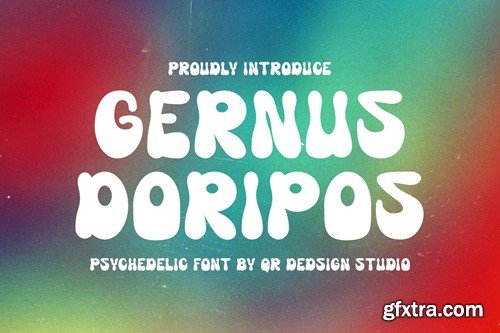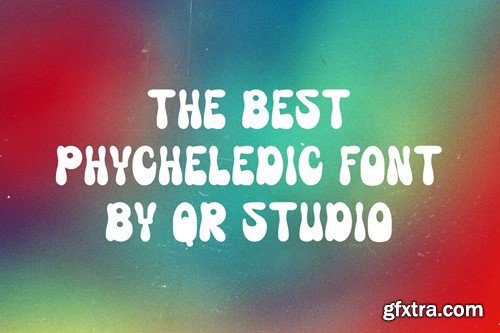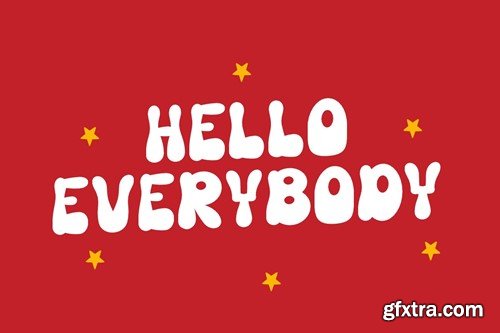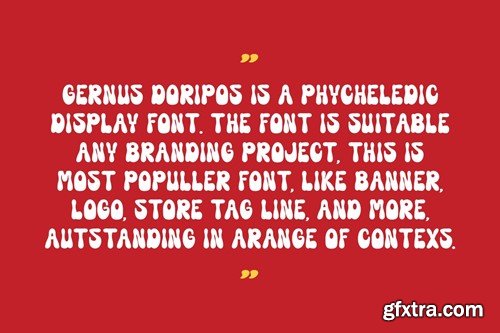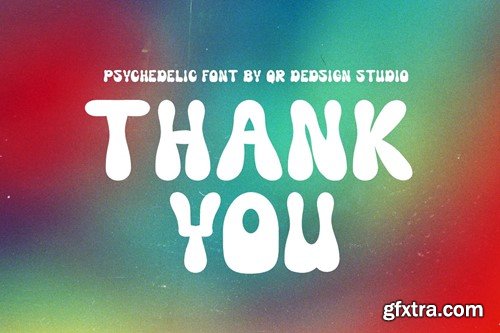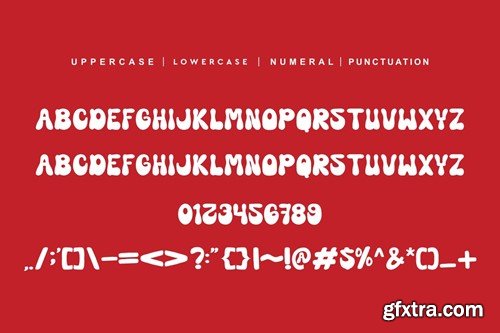
郭努斯·多里波斯 - 醉 psychedelic 字体 NBP8YPS
Gernus Doripos - Psychedelic Font NBP8YPS
Gernus Doripos - Psychedelic Font
Gernus Doripos - Psychedelic Font is a brush and authentic display font. The font is suitable for any branding project like poster, logo, food, and many more. Outstanding in a wide range of contexts.